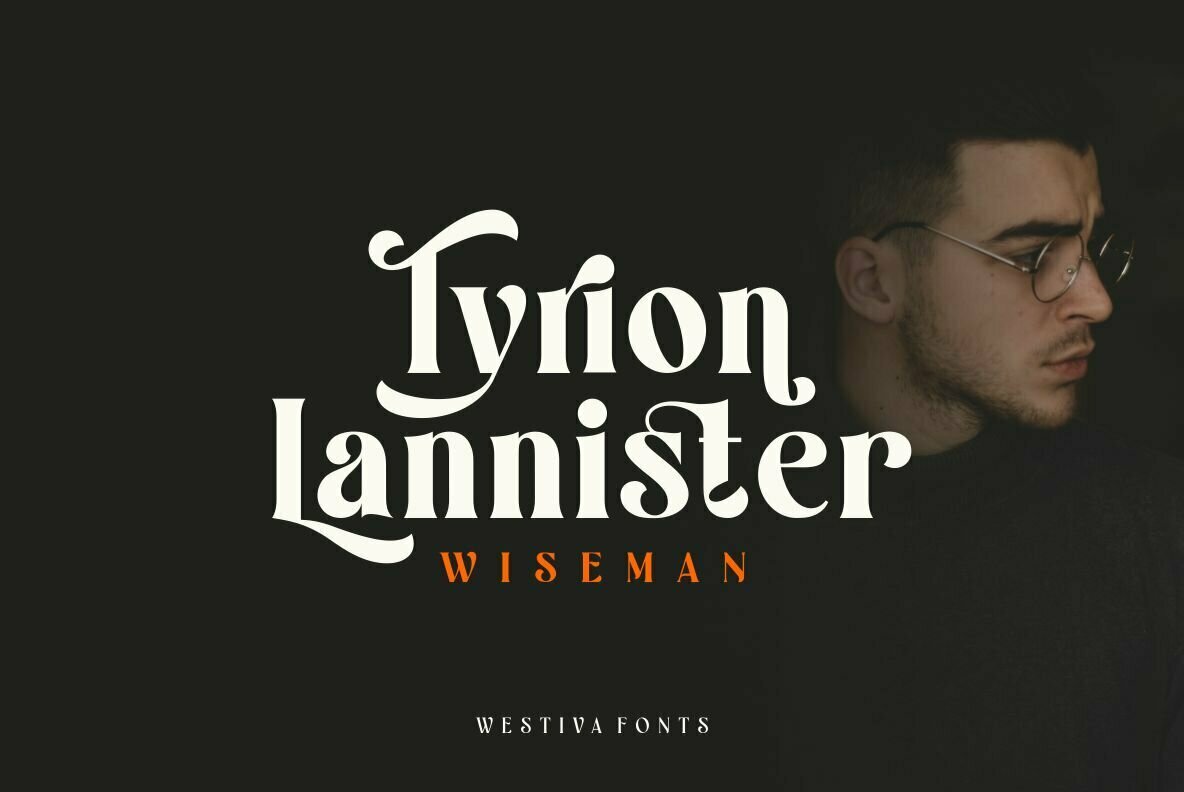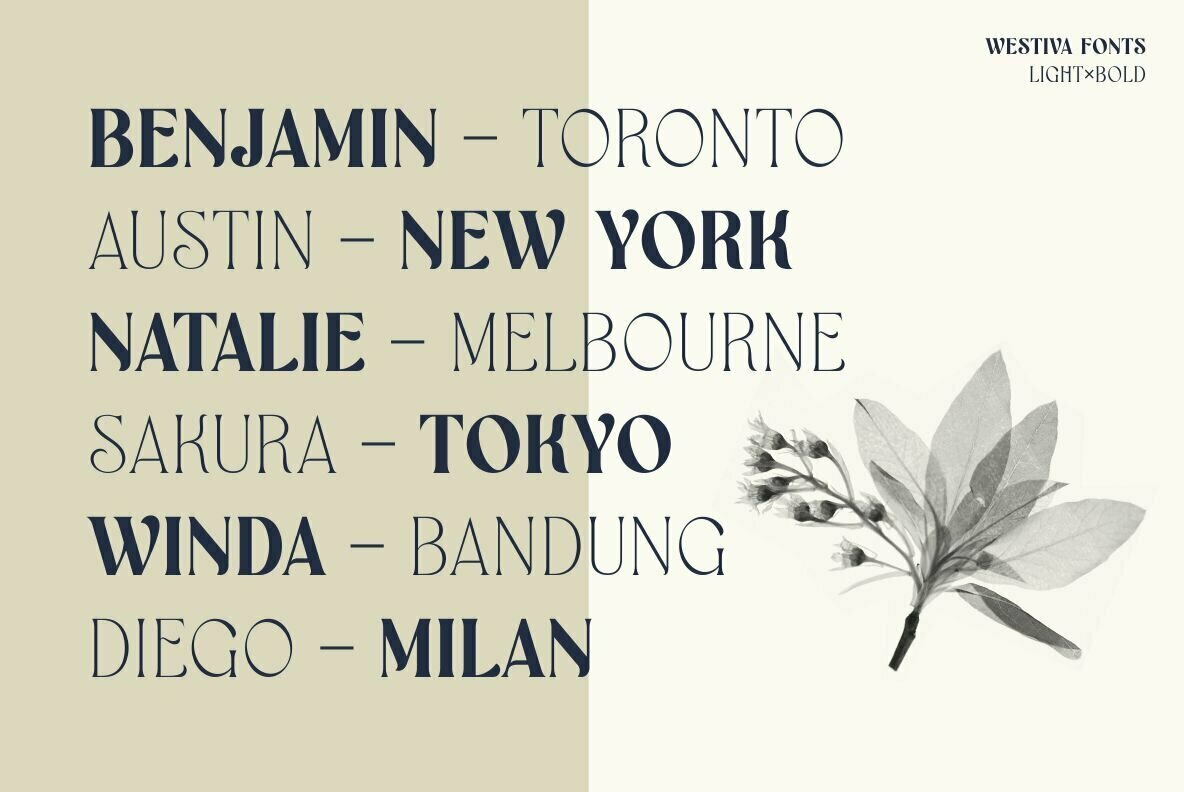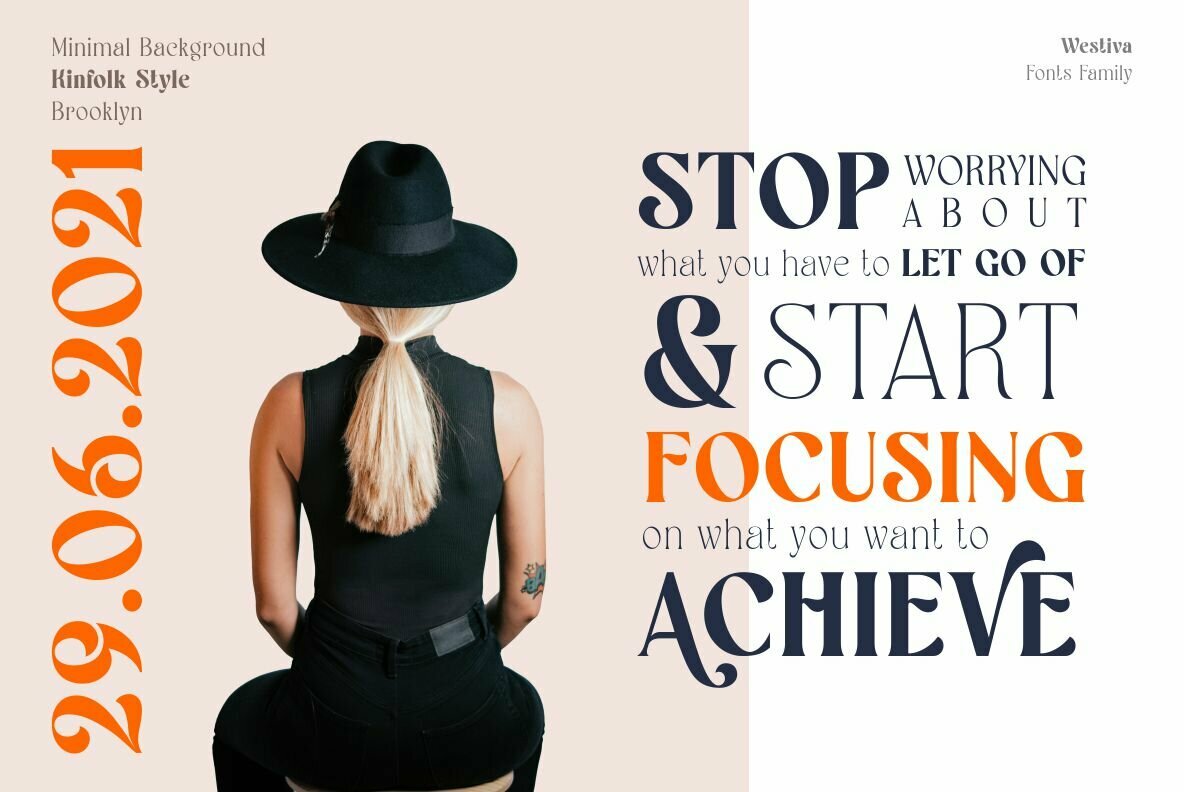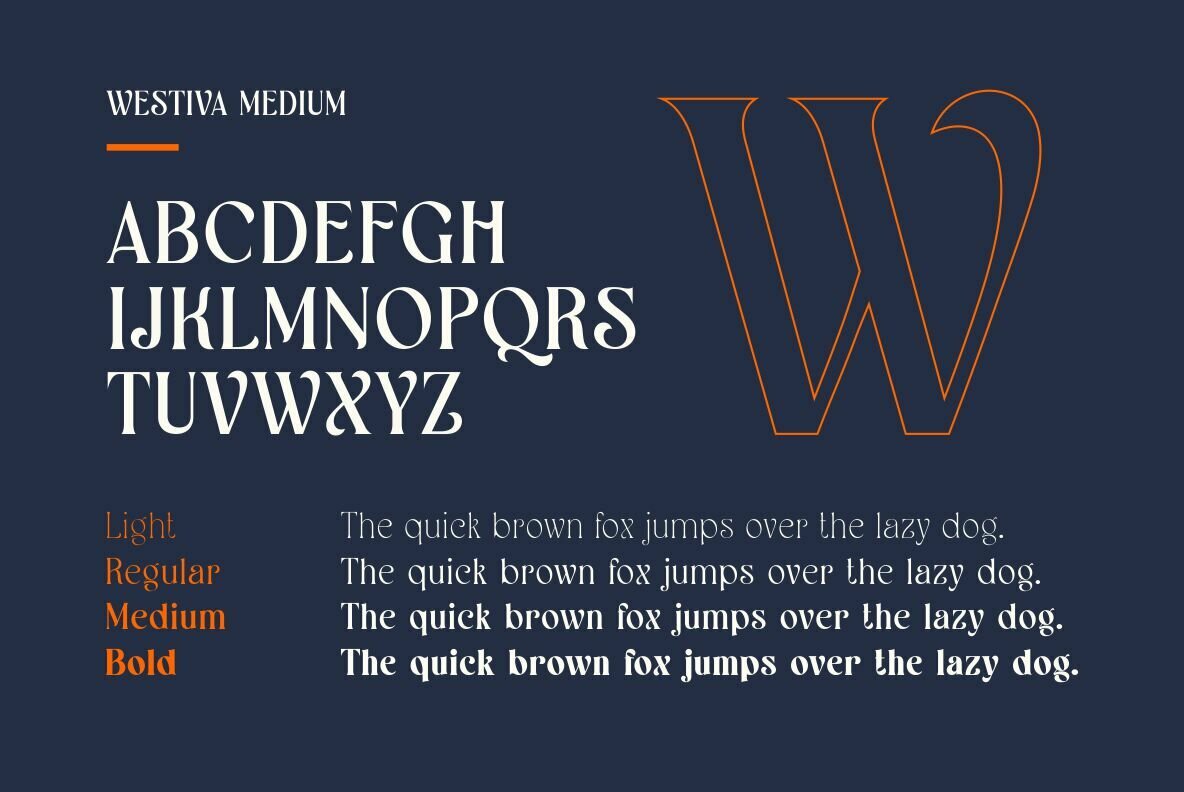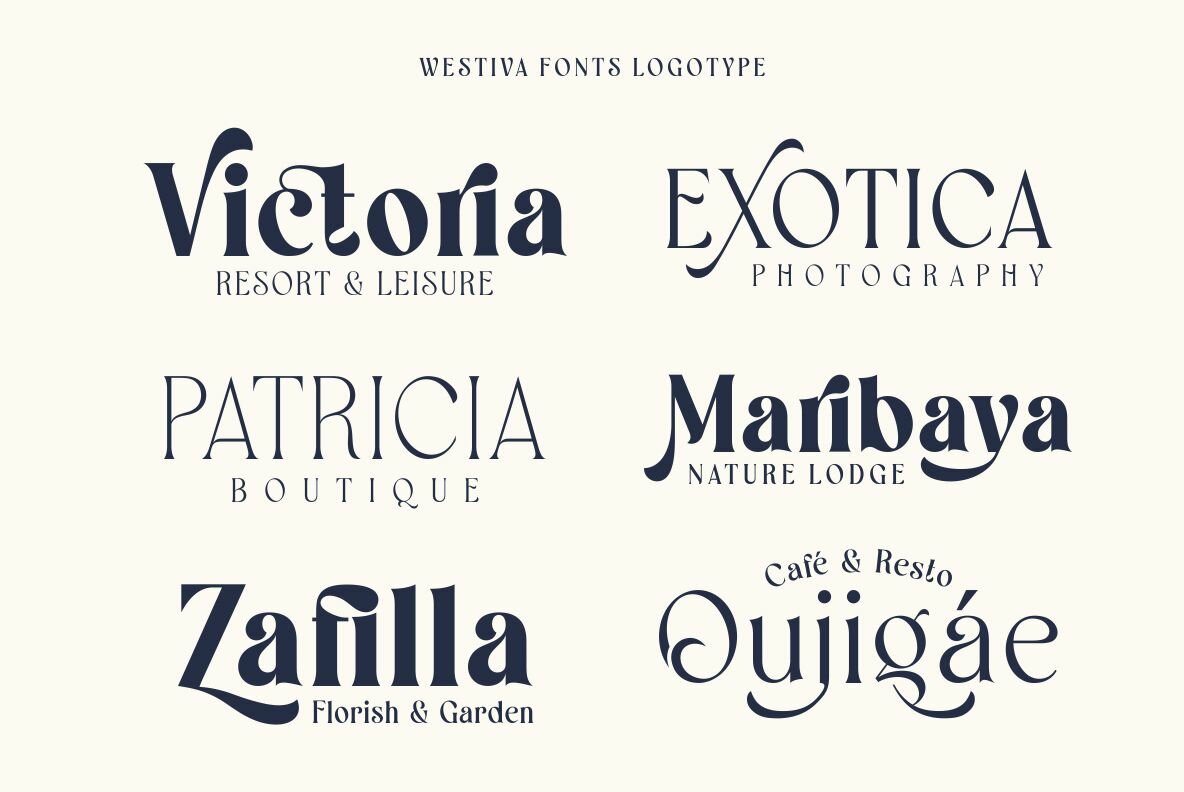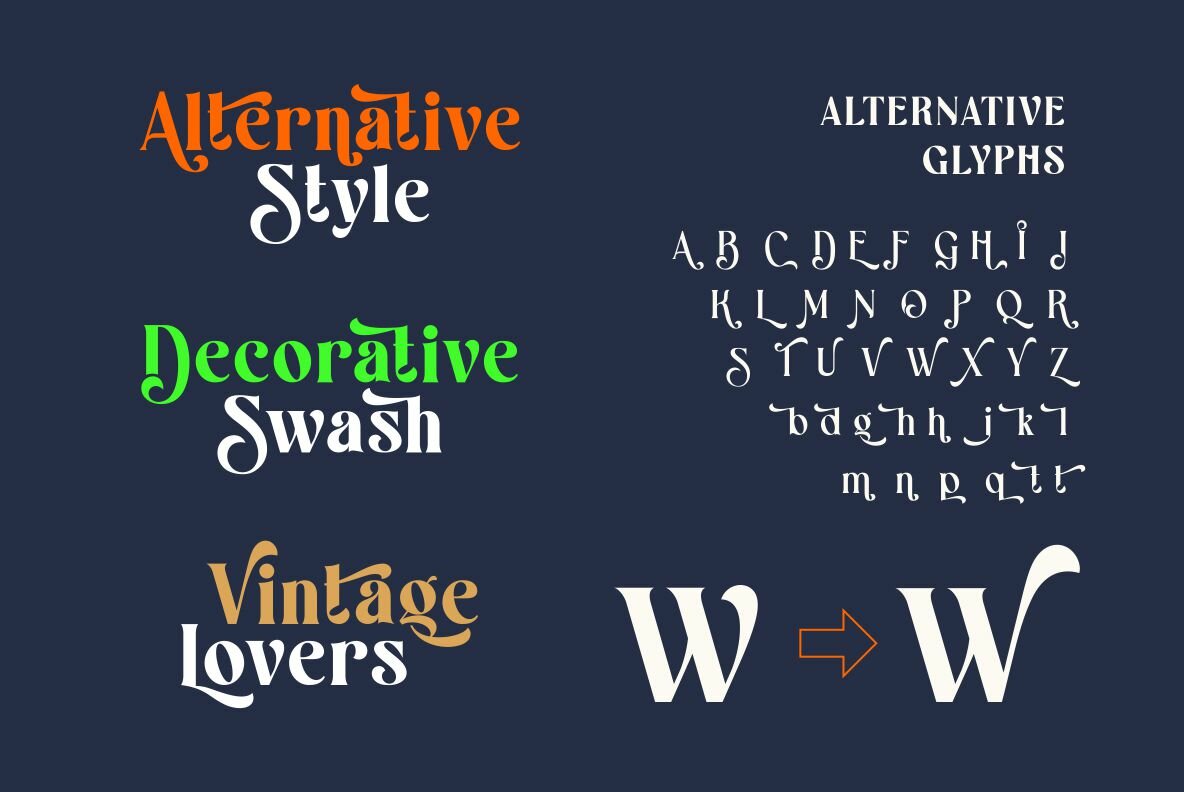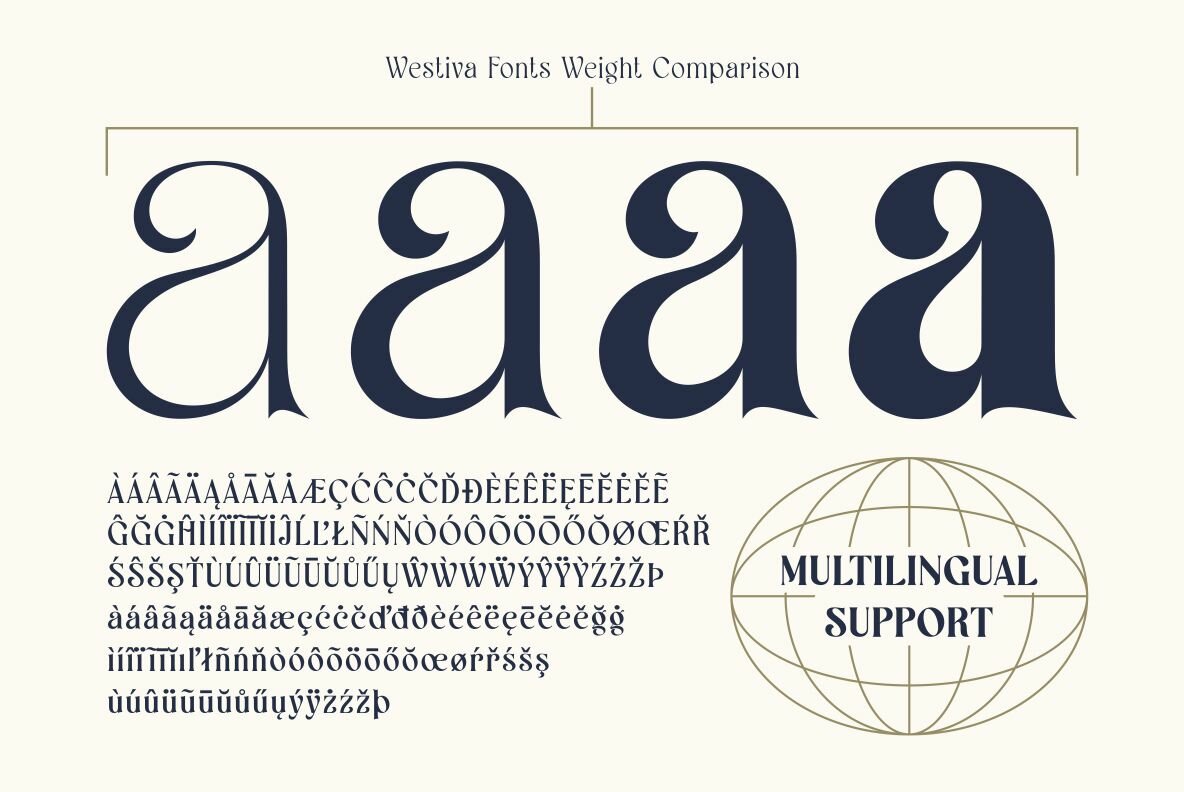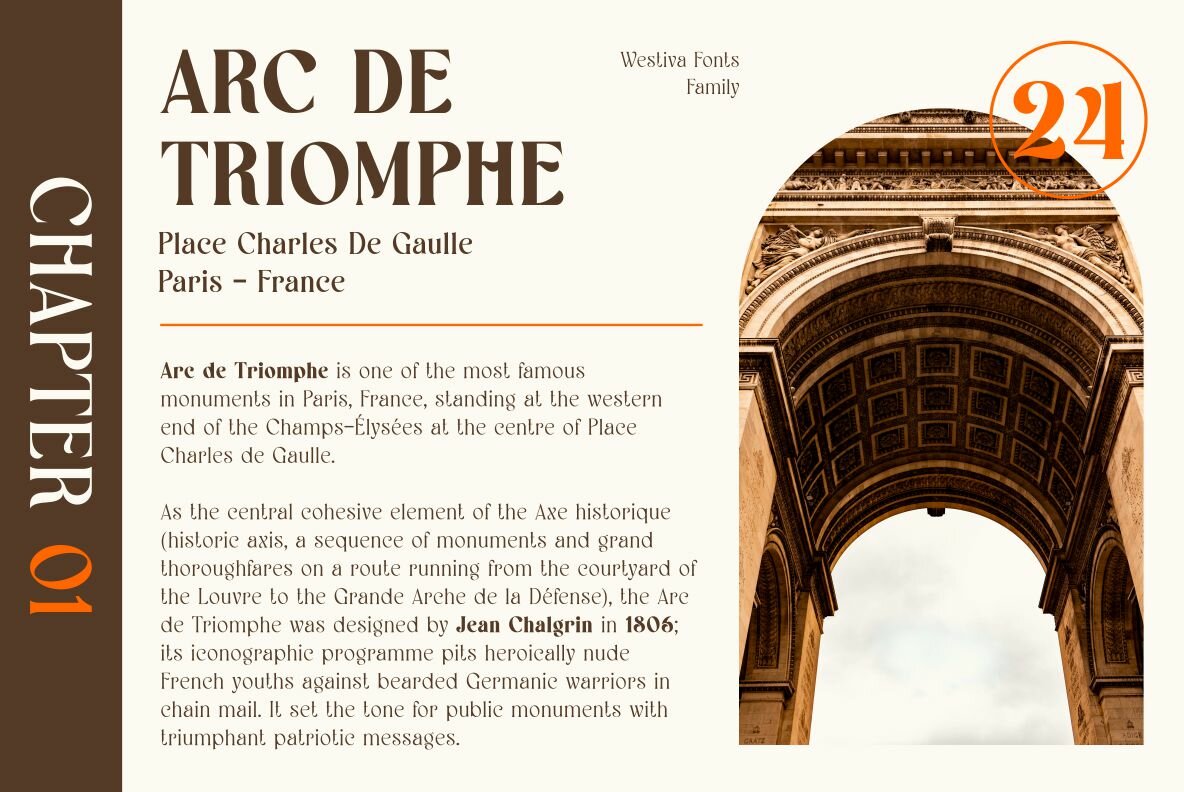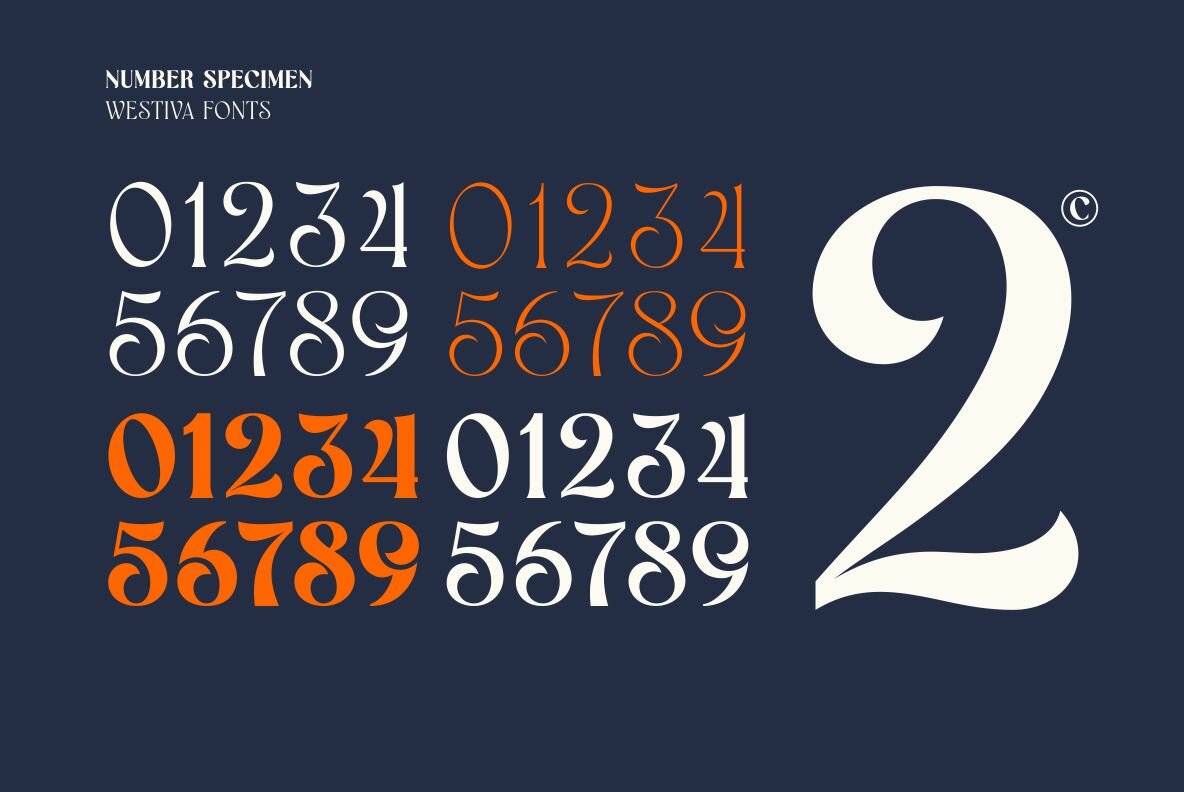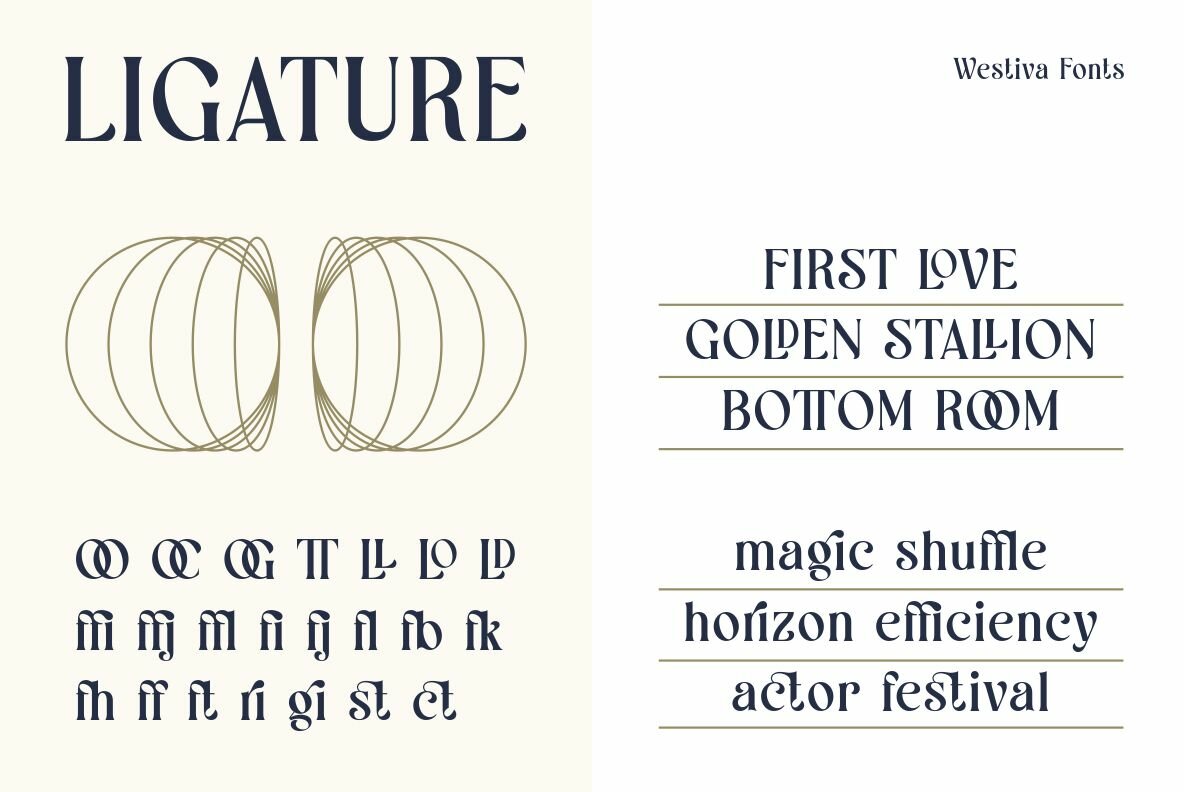
Westiva Font
Westiva is a serif font family noted for its refined and sophisticated style, offering an aesthetic grace with each glyph. Crafted with attention to natural and captivating curves, Westiva Typography serves as an excellent choice for designers working on projects that demand an elegant and professional touch. This versatile font family is ideal for applications ranging from luxury brand logos and business cards to web design and social media posts.Westiva: Elegant Serif Font Family